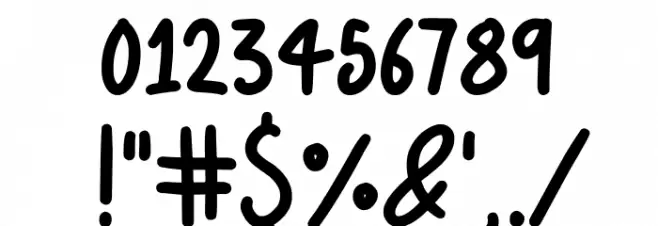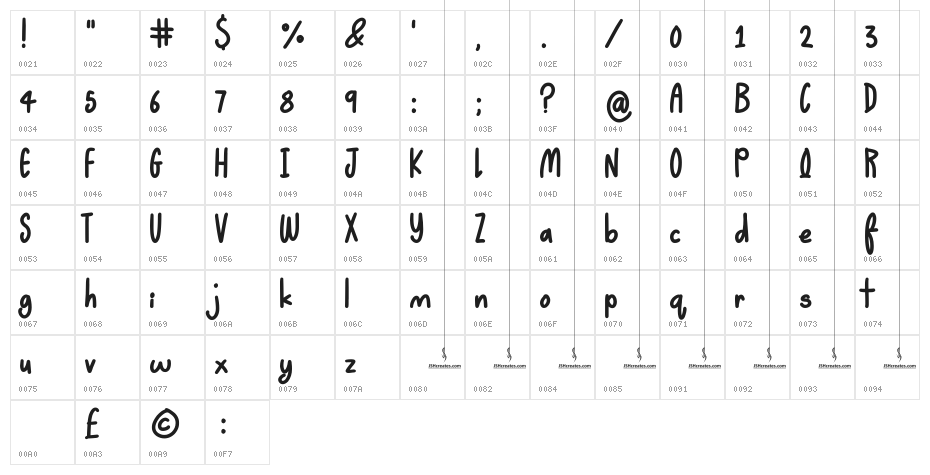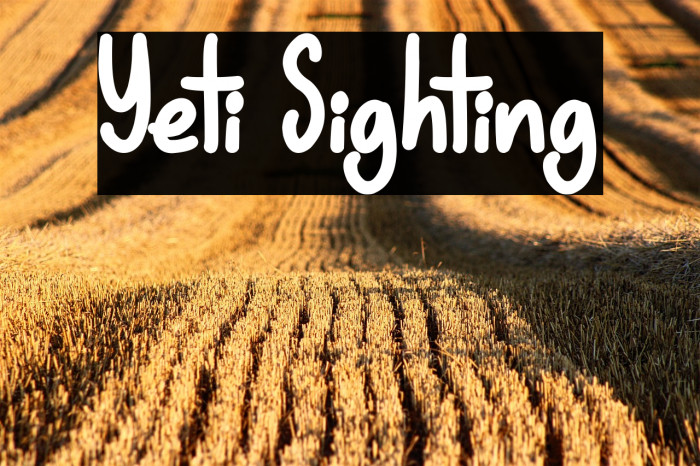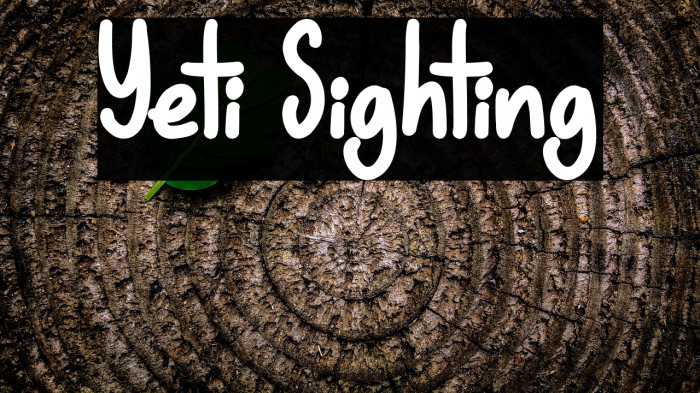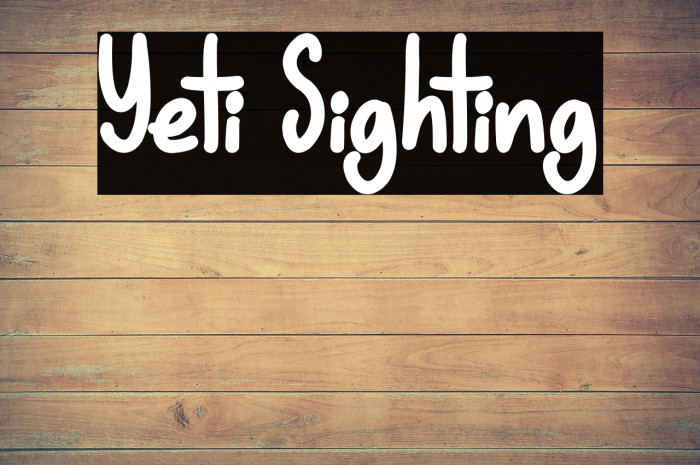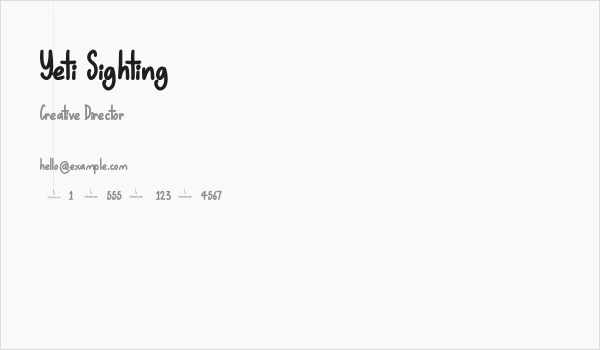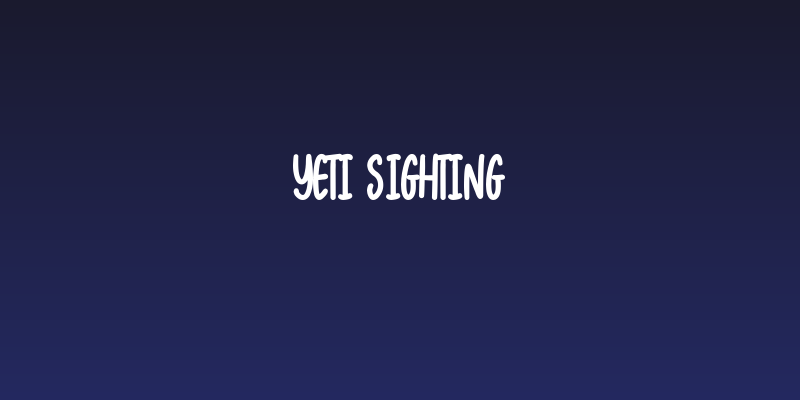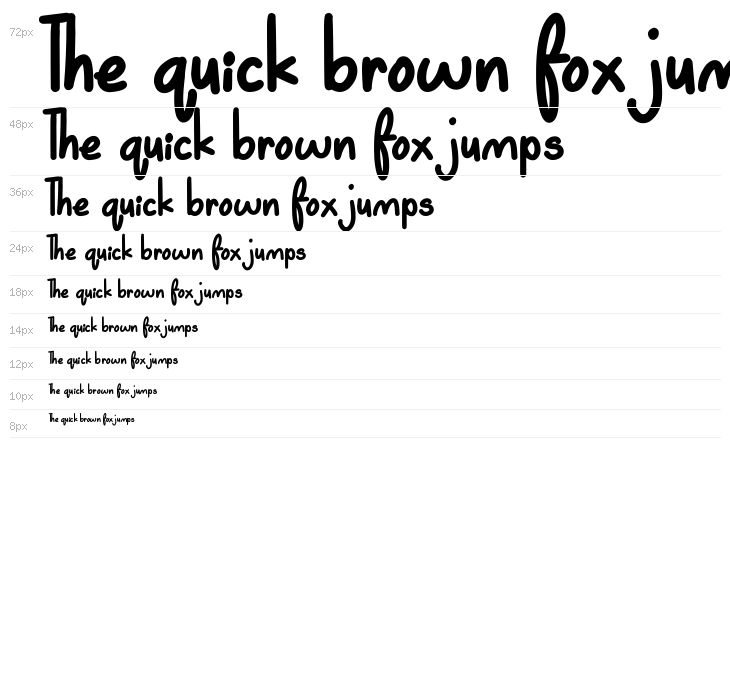
Yeti Sighting Font
Yeti Sighting Description
A playful, handwritten font with a casual and informal style, featuring rounded edges and a slightly uneven baseline.
| Overall Style | Casual |
| Use Case | Headlines, Casual text, Branding |
| Proposed Projects | Greeting cards, children's books, casual branding. |